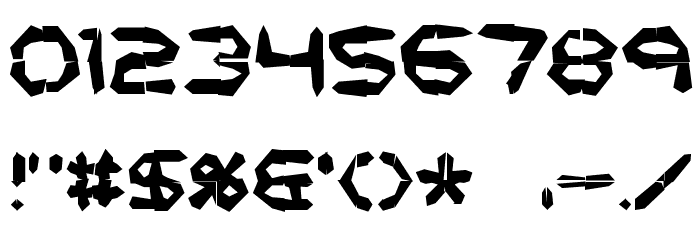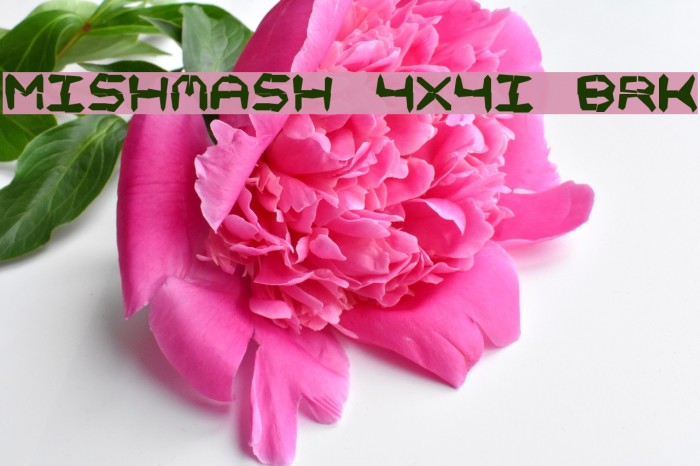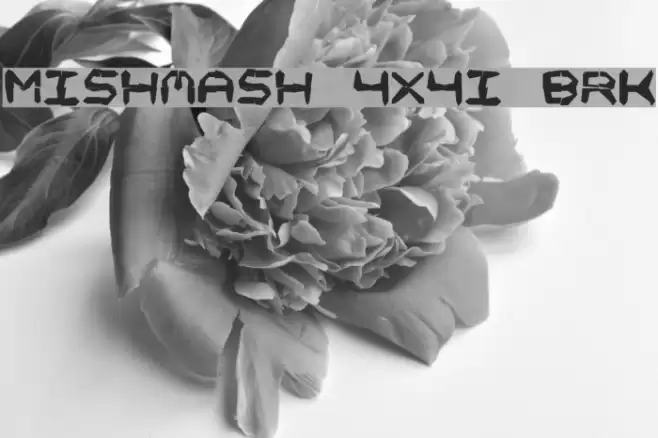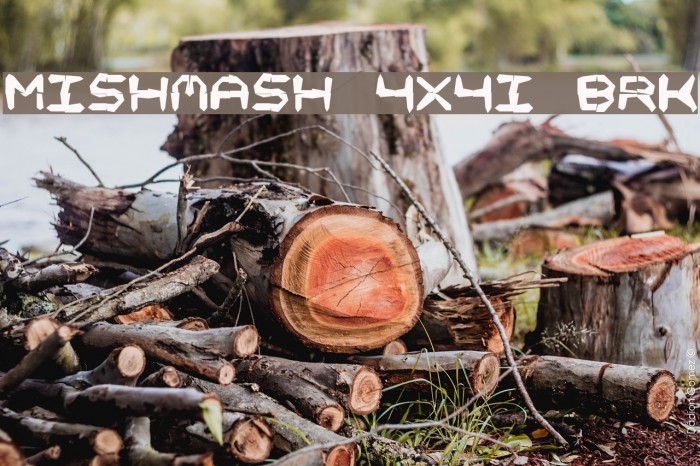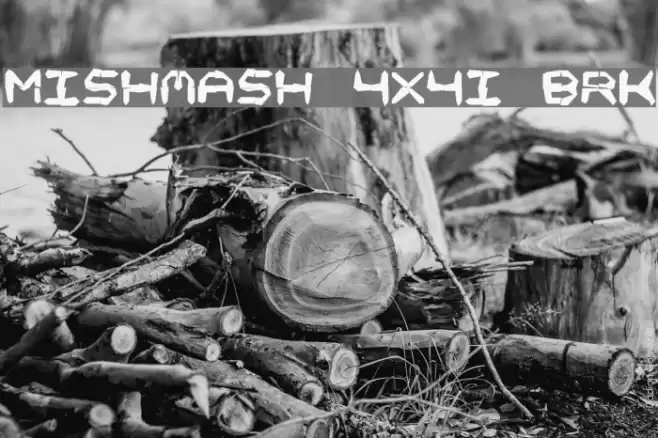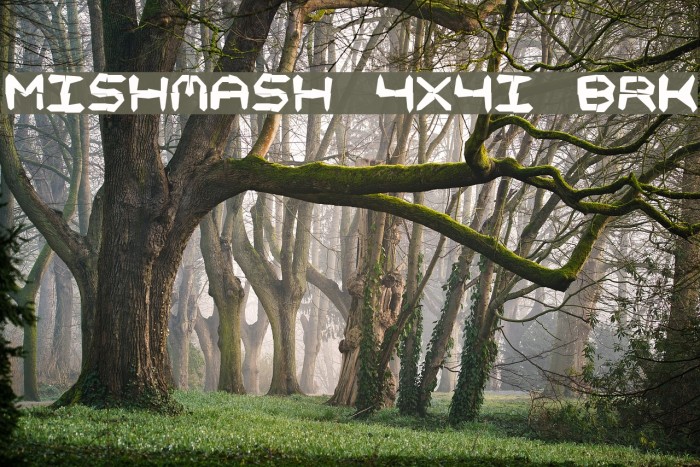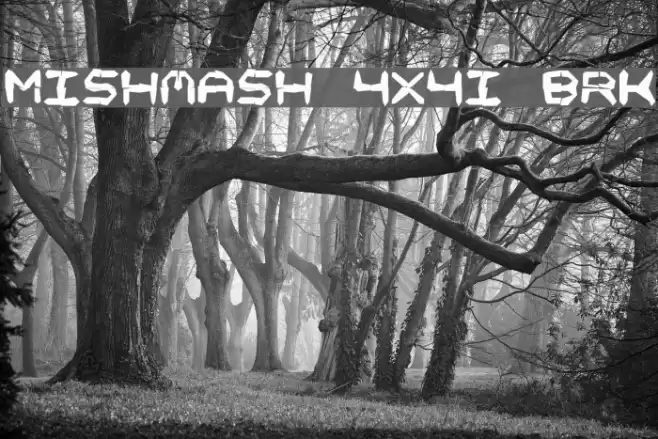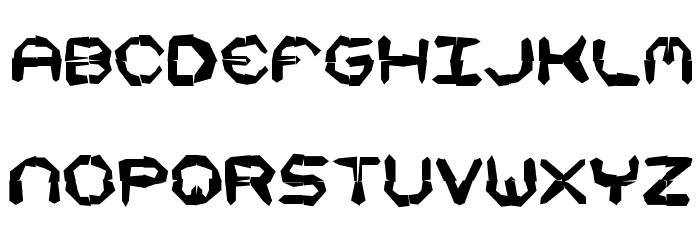
Mishmash 4x4i BRK Font
Mishmash 4x4i BRK Description
This font features a bold, geometric design with a distinctly angular and fragmented appearance. Each character is constructed from a series of sharp, irregular shapes that give it a unique, edgy look. The uppercase and lowercase letters maintain a consistent style, with the uppercase being slightly more pronounced. Numbers and special characters follow the same design principles, ensuring uniformity across the font. The overall aesthetic is modern and unconventional, making it suitable for projects that require a standout, artistic typeface.
| Proposed Projects | Ideal for modern art projects, edgy branding, album covers, and posters that require a distinctive and artistic touch. |